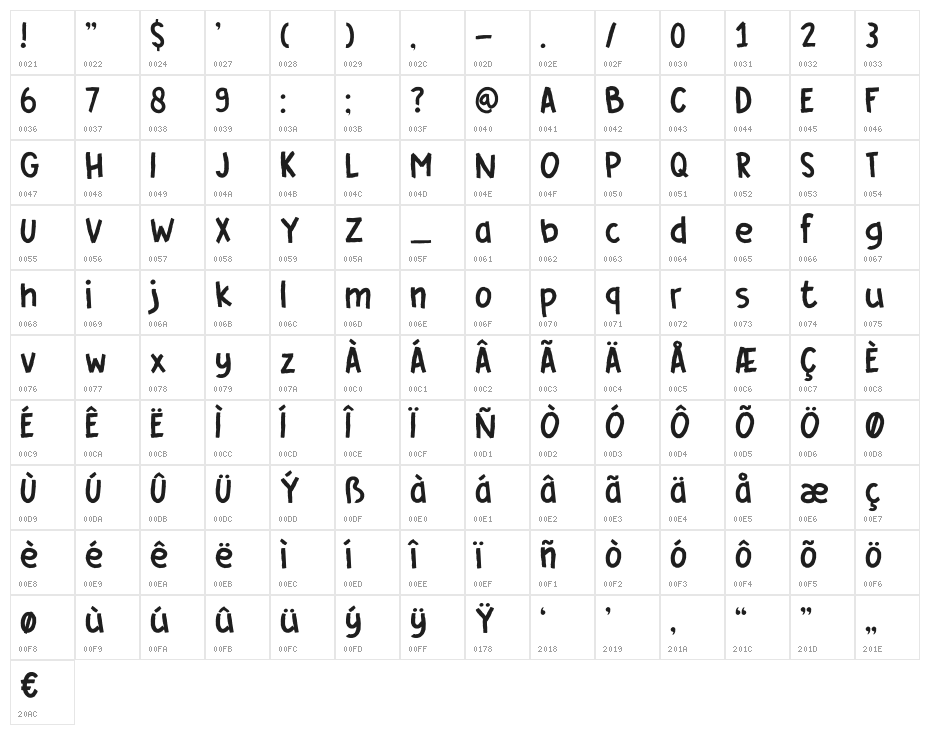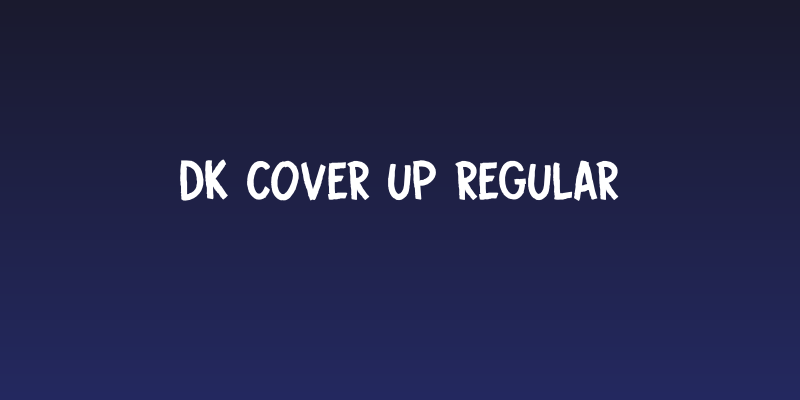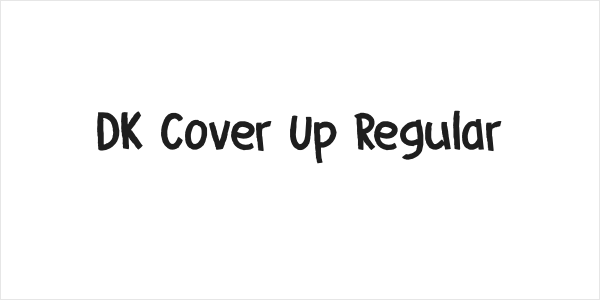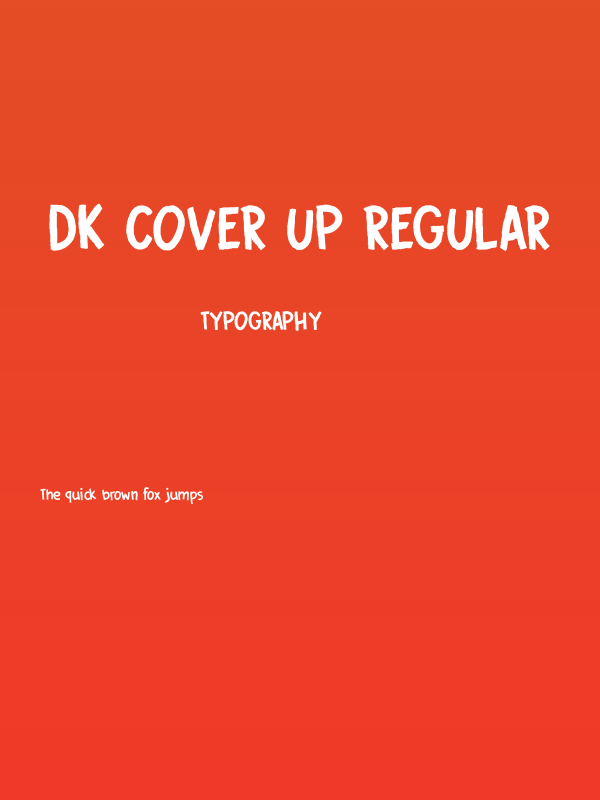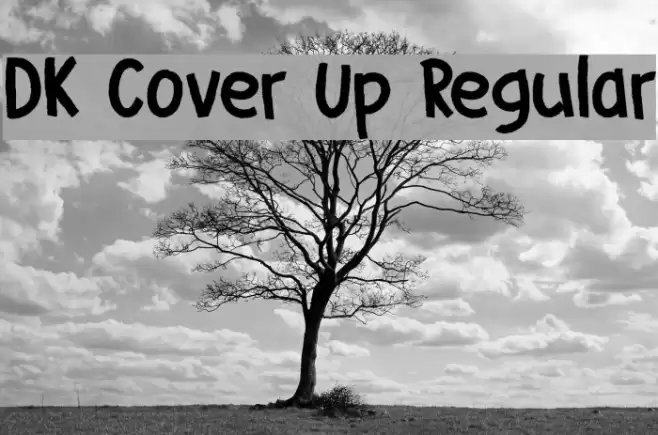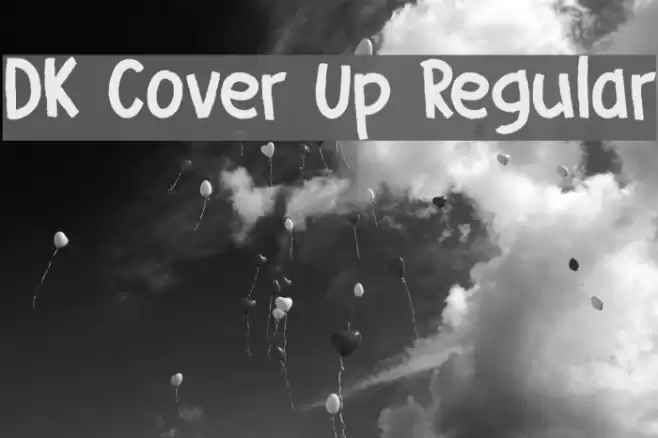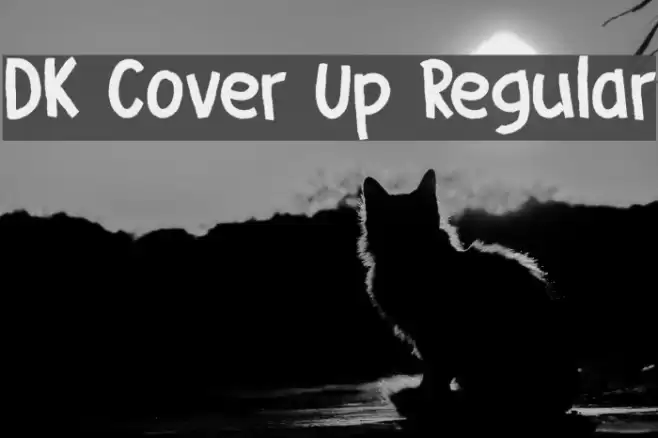
DK Cover Up Regular Font
DK Cover Up Regular Description
This font features a playful, hand-drawn style with bold, uneven strokes that give it a casual and informal appearance. The letters are slightly irregular, adding to the whimsical and artistic feel. The uppercase and lowercase characters maintain a consistent style, with rounded edges and a slightly rough texture. The numbers follow the same playful design, and the special characters include unique symbols that enhance the font's quirky personality. This font is perfect for projects that require a fun and engaging look, such as children's books, posters, or creative branding.
| Proposed Projects | Ideal for children's books, posters, creative branding, and informal invitations. |